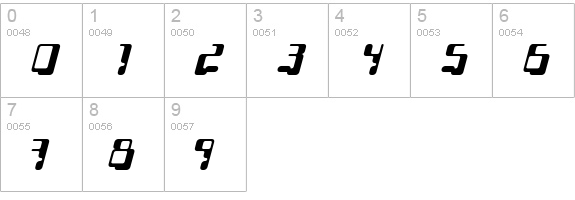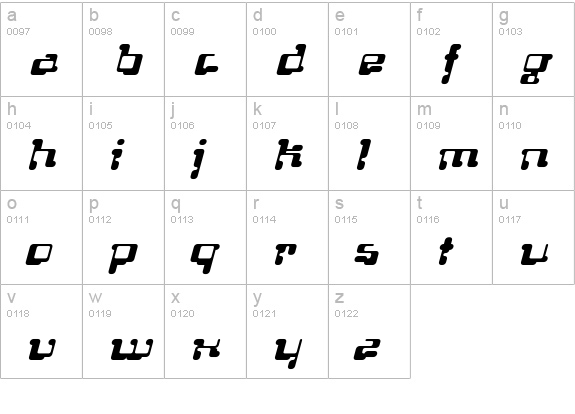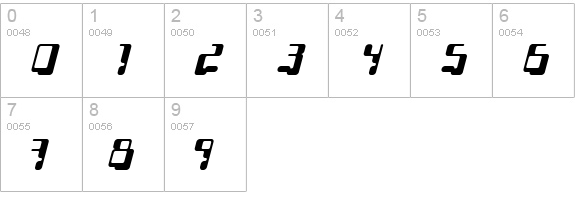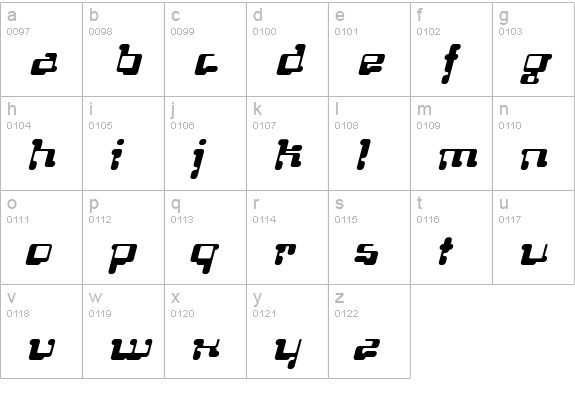
Localizer-SerifItalic Font Details
Introducing Localizer-SerifItalic font, a timeless and elegant typeface designed to add a touch of sophistication to your projects. The graceful curves and classic serifs of Localizer-SerifItalic exude a sense of refinement and style, making it perfect for a wide range of design applications. This font is a versatile choice for both digital and print media, whether you're creating logos, branding materials, invitations, or editorial designs. The italicized style of Localizer-SerifItalic adds a hint of flair and emphasis to your text, making it stand out while maintaining a sense of professionalism. What's even better is that Localizer-SerifItalic is available for free download at FontsMarket.com, allowing you to access this premium font without any cost. Don't miss out on the opportunity to enhance your design projects with the timeless beauty of Localizer-SerifItalic font. Download it today and elevate your typography game!